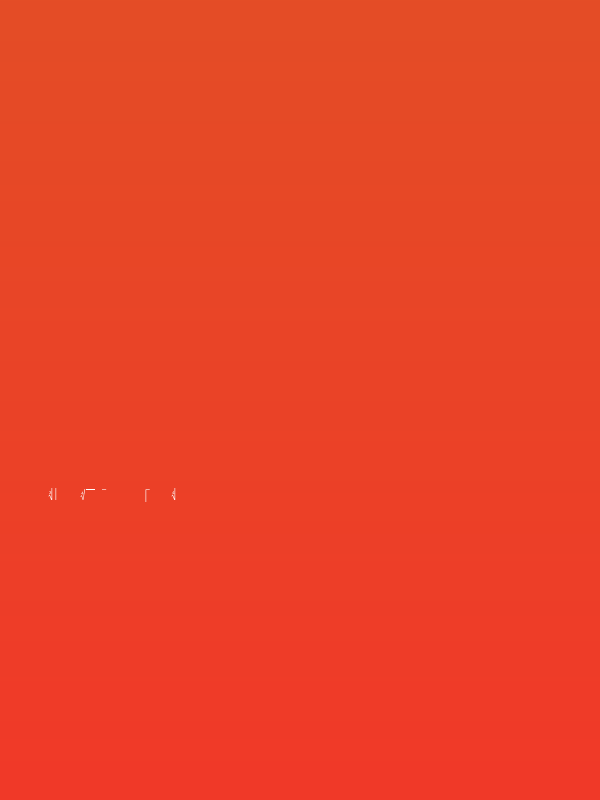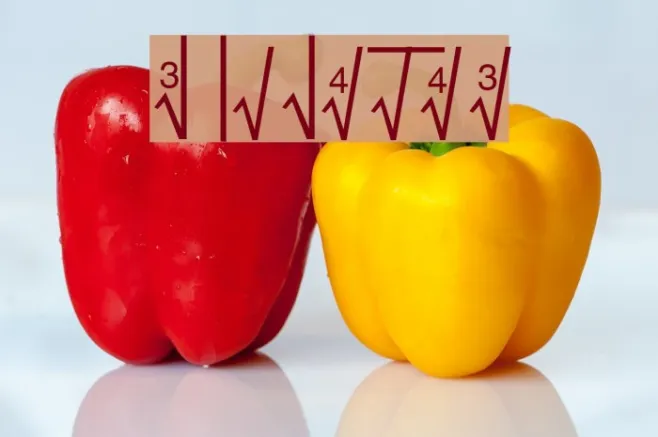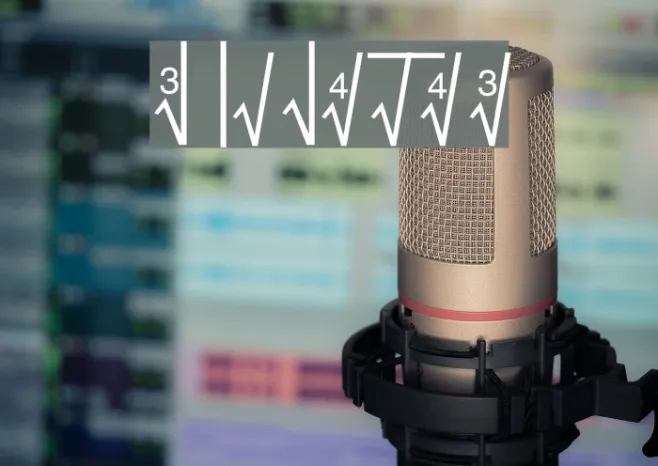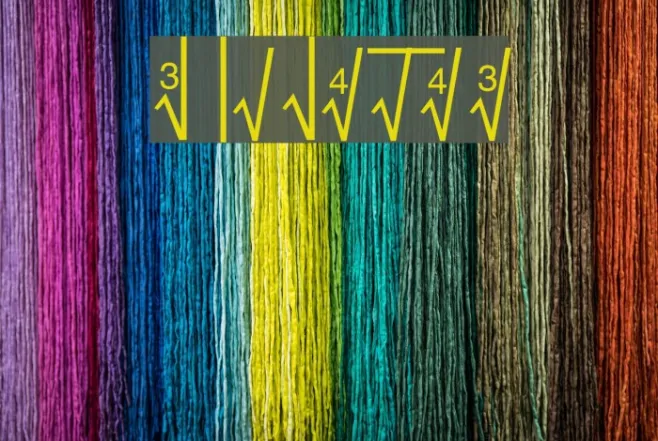
TheRadicalSign Font
This font is characterized by its unique use of mathematical radical signs, creating a visually striking and unconventional appearance. The numbers are presented in a clean, sans-serif style, ensuring readability and clarity. The radical symbols add an element of mathematical intrigue, making the font particularly suitable for educational or scientific contexts. The overall design is modern and minimalistic, with a focus on geometric precision and simplicity. The font's distinctive style makes it ideal for projects that aim to convey a sense of innovation and intellectual curiosity.
| Use Case | Logos, Educational materials, Scientific presentations |
| Proposed Projects | Ideal for educational materials, scientific presentations, and innovative branding projects. |